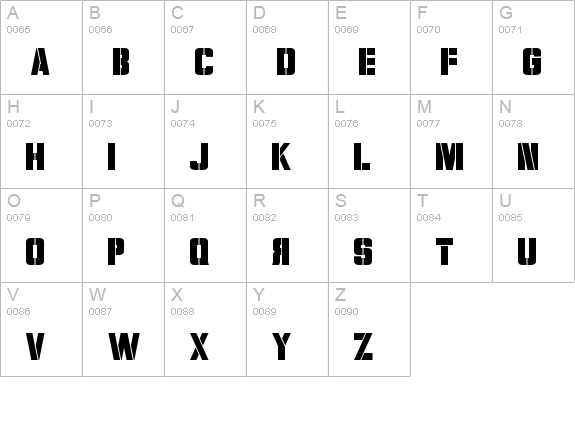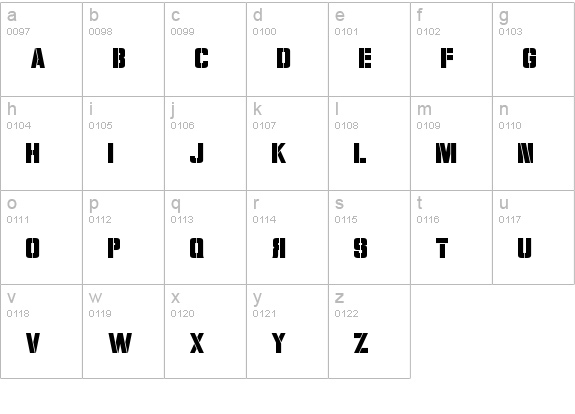
Introducing Volkoff, a stunningly elegant and versatile font that is sure to captivate and inspire. With its sleek and modern design, Volkoff effortlessly combines classic sophistication with a contemporary edge, making it the perfect choice for a wide range of creative projects. Featuring a unique blend of sharp lines and graceful curves, Volkoff exudes a sense of refined beauty that is both timeless and fresh. Whether used in headlines, body text, or as a stylish accent, this font commands attention and adds a touch of sophistication to any design. But what truly sets Volkoff apart is its accessibility. This remarkable font is not only visually striking but also freely available to download at FontsMarket.com. Yes, you read that right - Volkoff is completely free, allowing designers, artists, and enthusiasts alike to bring their ideas to life without any limitations. So why wait? Unleash your creativity and elevate your designs with Volkoff. Whether you're working on a branding project, a website, or a printed piece, this font will effortlessly elevate your work to new heights. Download Volkoff today from FontsMarket.com and experience the beauty and versatility of this remarkable typeface.